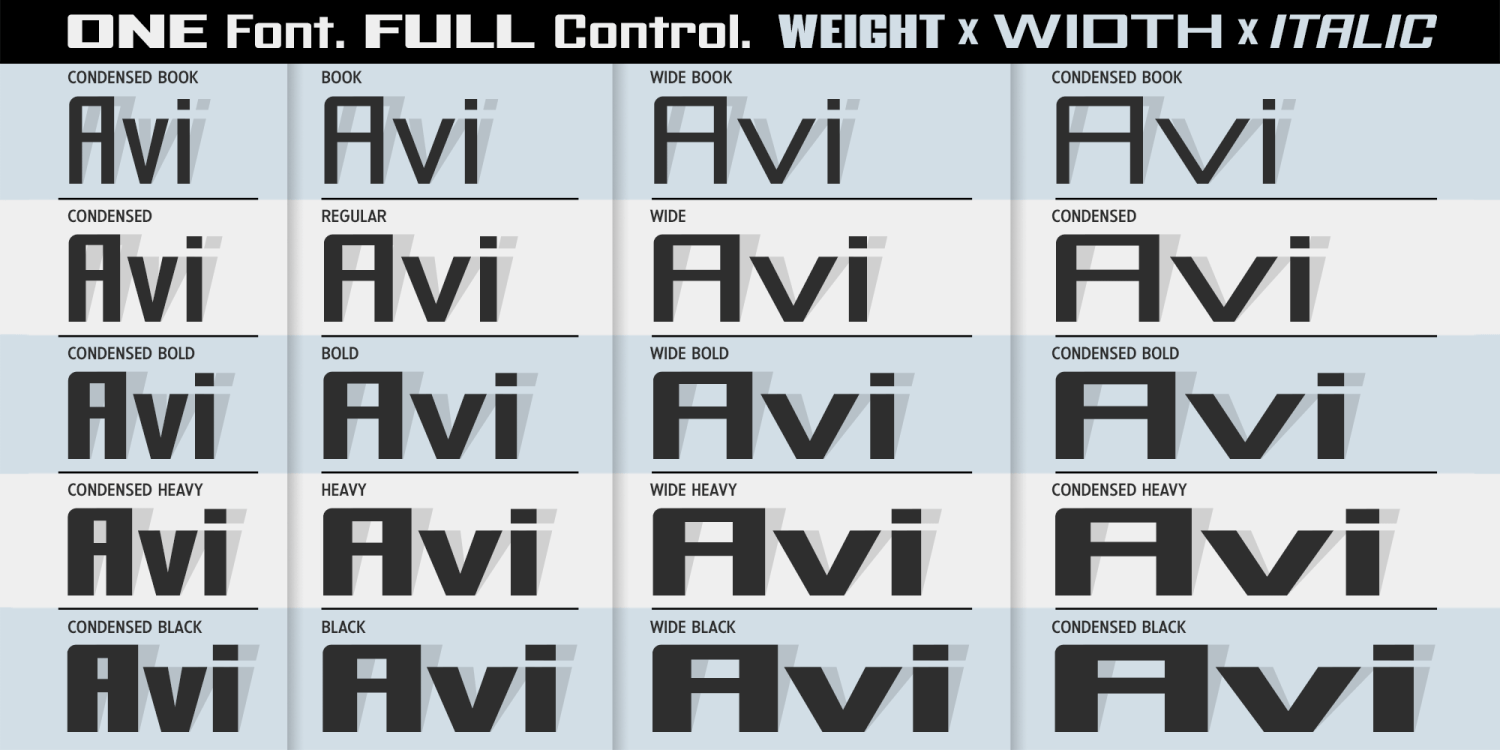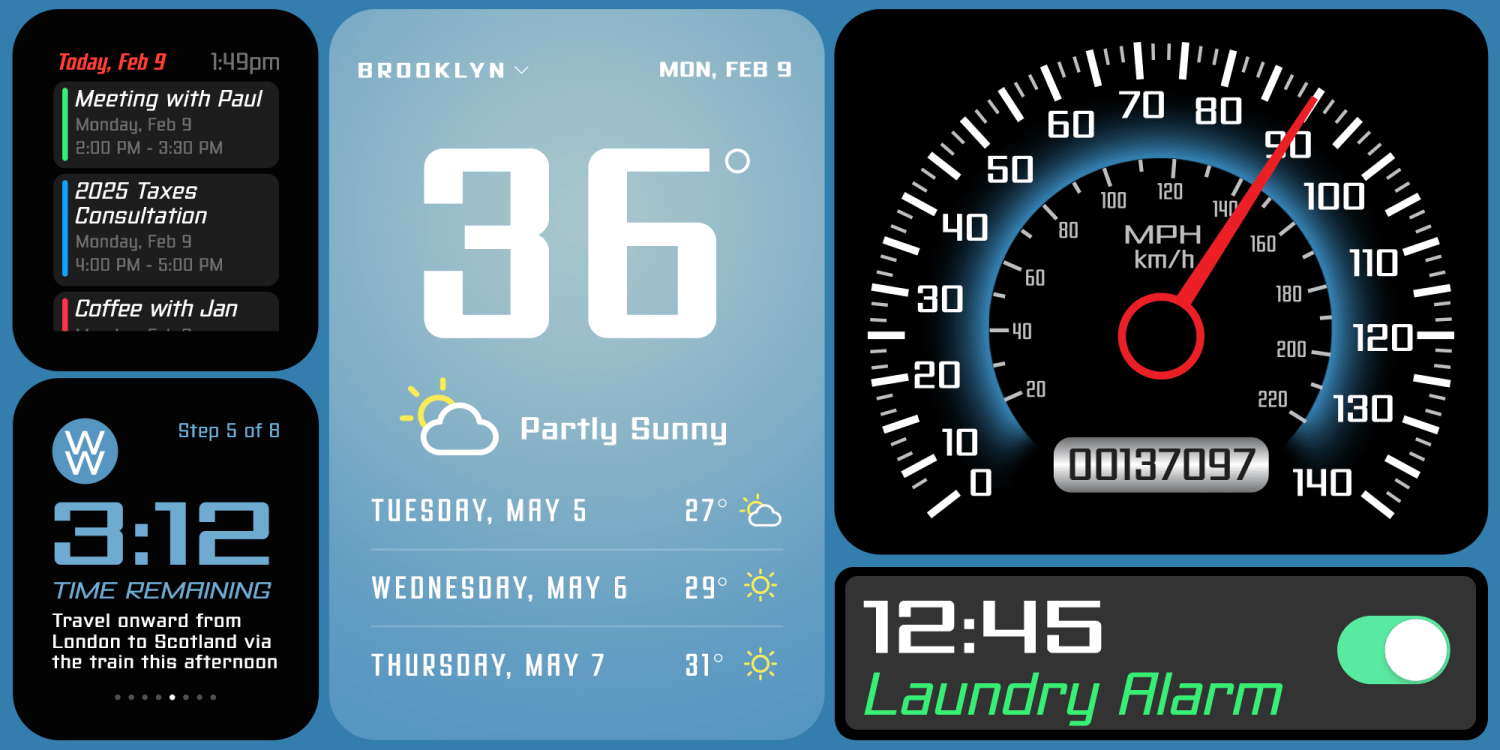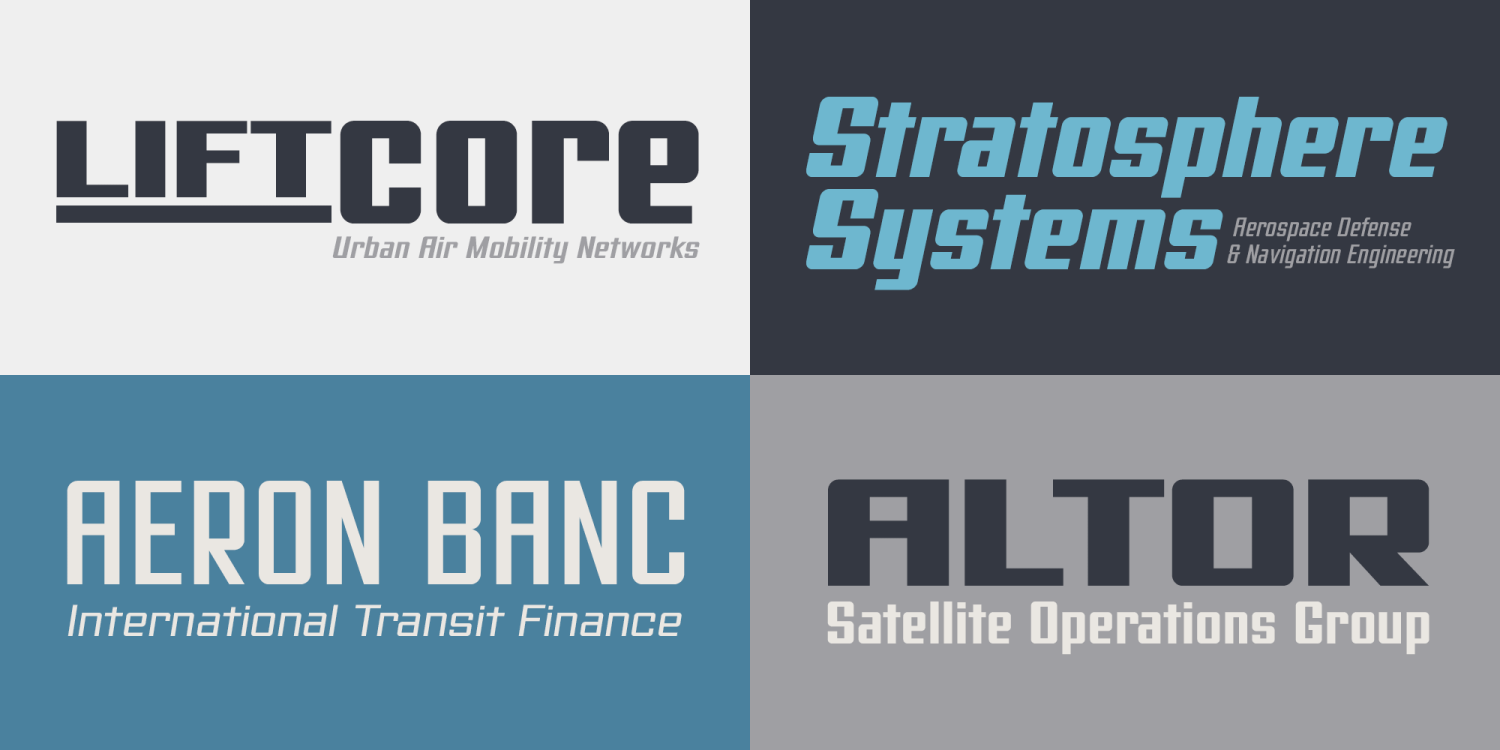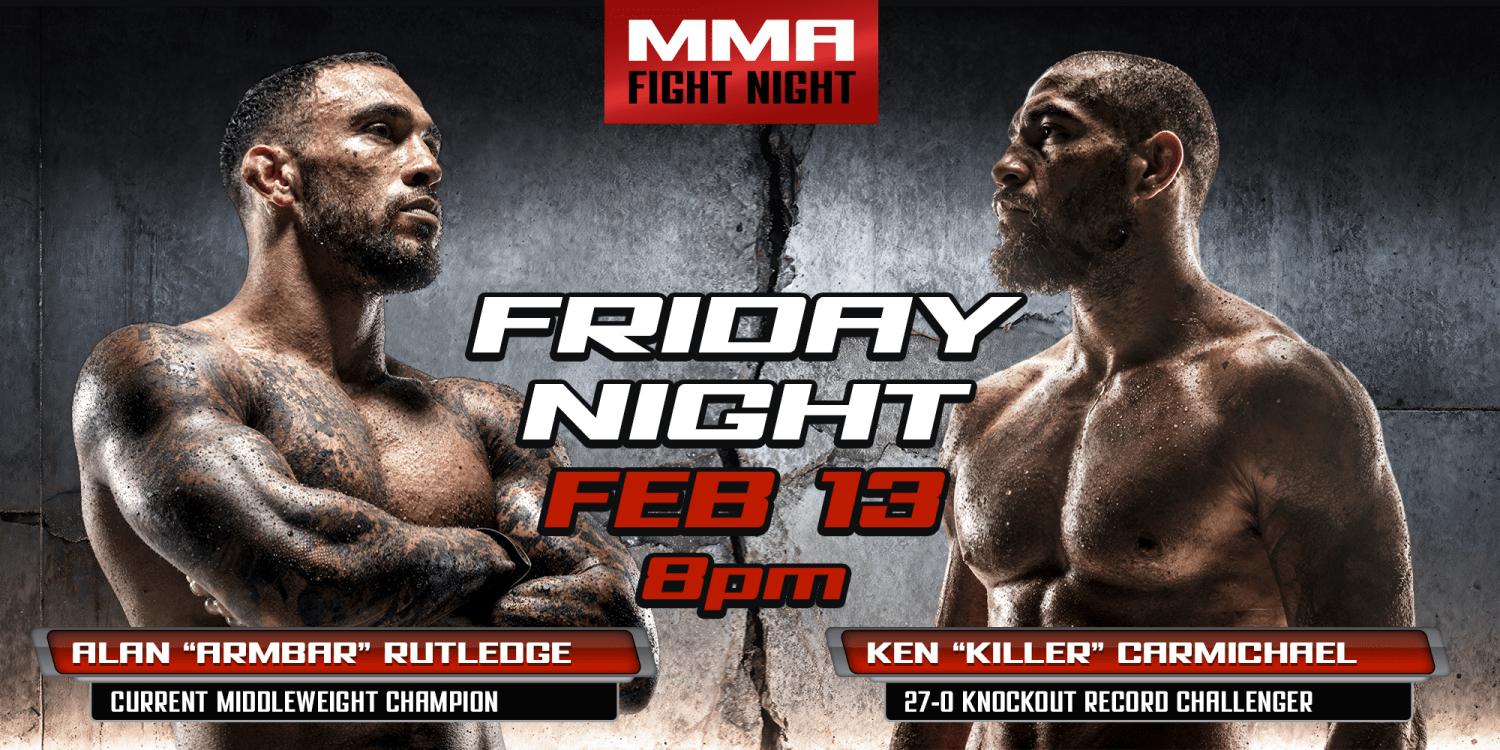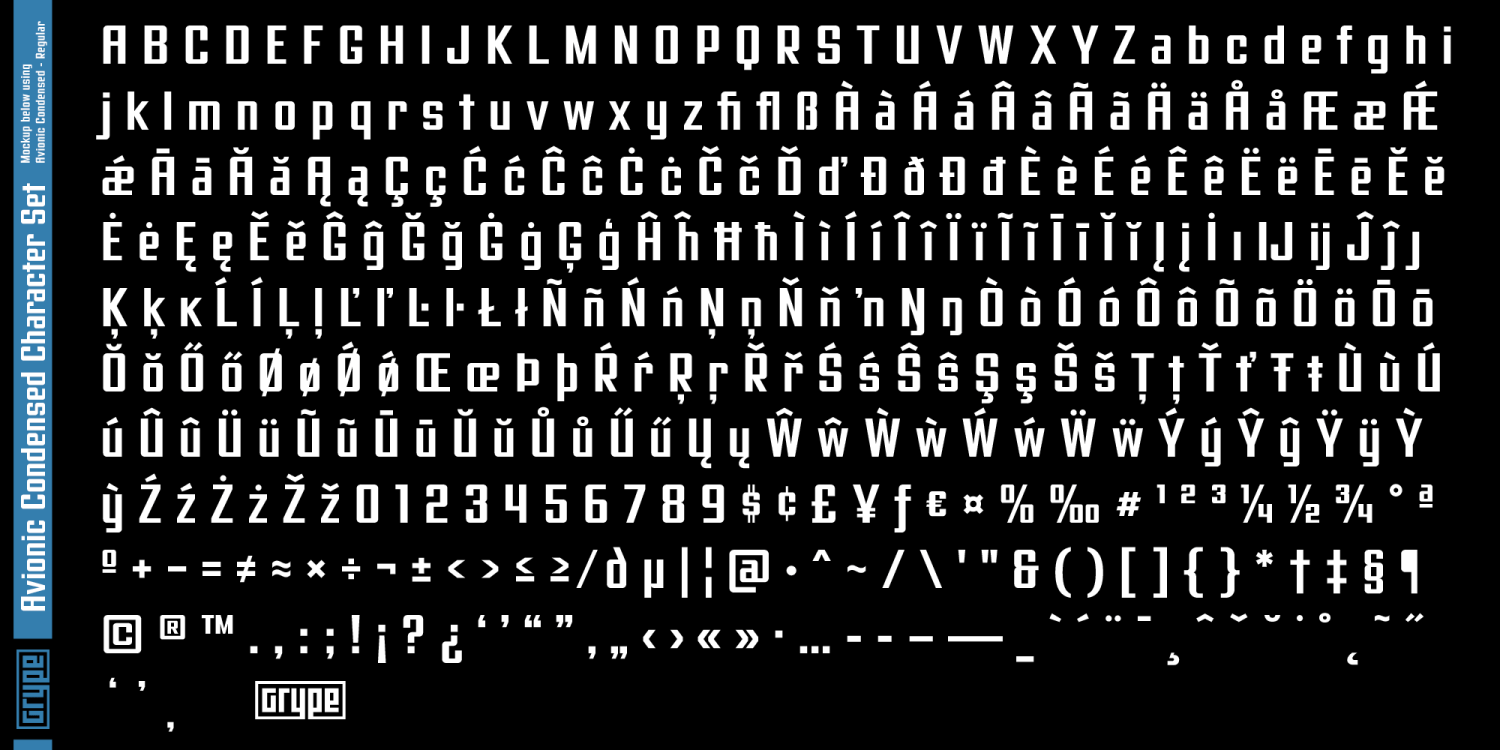
Avionic Variable
Font Family by Grype
Avionic Variable is a precision-engineered grotesk designed for aerospace systems, advanced interfaces, and modern industrial branding. Built as a full multi-axis variable font, Avionic offers seamless control across weight, width, and slant—allowing designers to adapt typography fluidly from dense technical environments to bold, high-impact identity work.
Its disciplined geometry, stable proportions, and carefully calibrated diagonals make Avionic equally suited to cockpit-style displays, navigation systems, automotive dashboards, and contemporary corporate identities. Every interpolation has been engineered for optical consistency, ensuring clarity and authority across the full design space.
The Avionic Complete Bundle features a broad static collection alongside its variable counterpart as a bundle, supporting demanding production workflows for branding, editorial systems, environmental graphics, UI design, and motion graphics. Extensive language coverage and meticulous drawing make Avionic a dependable workhorse for complex professional projects and provide flexible licensing options for production teams and agencies.
Whether deployed in data-rich interfaces or headline-driven campaigns, Avionic Variable delivers technical rigor, flexibility, and confidence—engineered for systems that move.